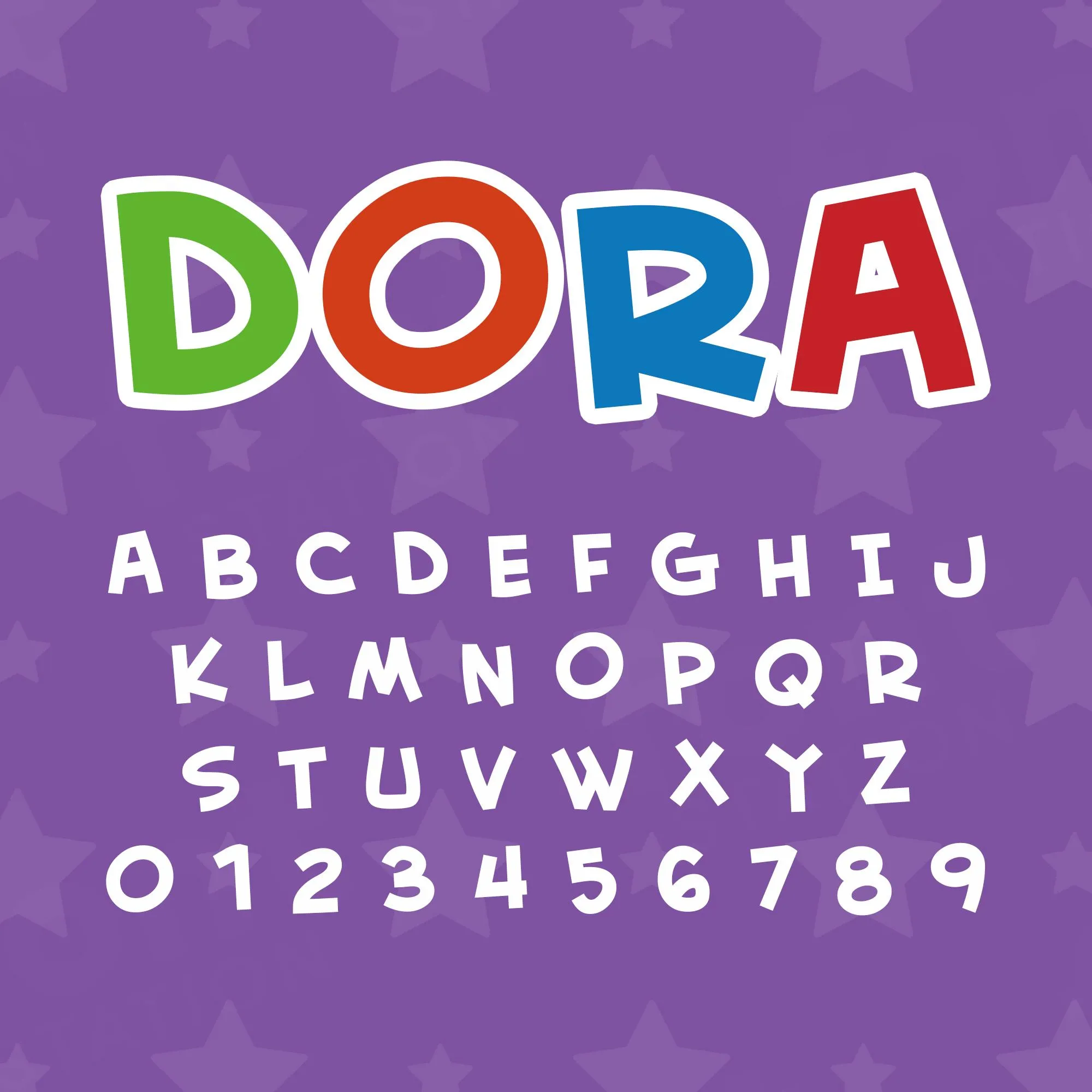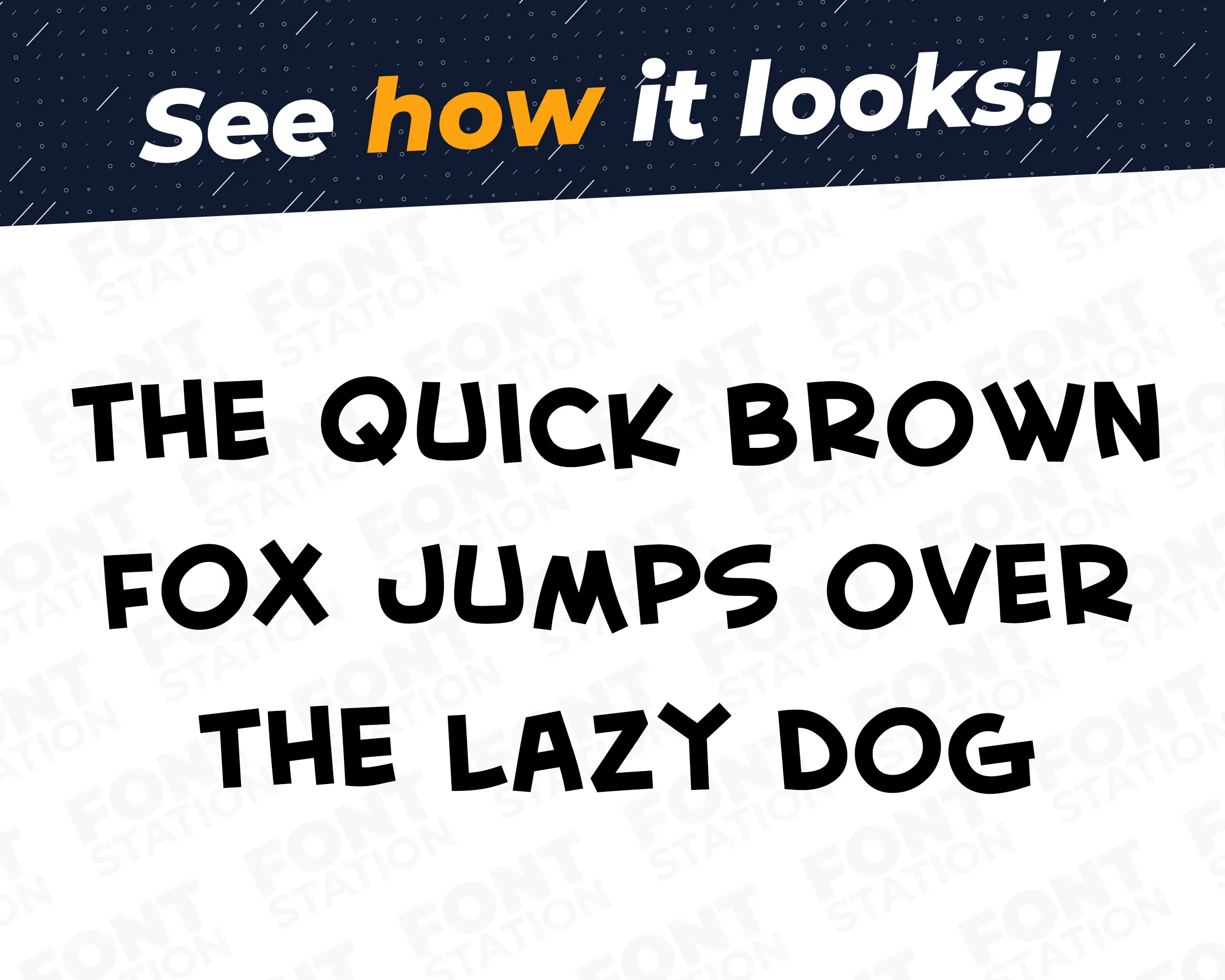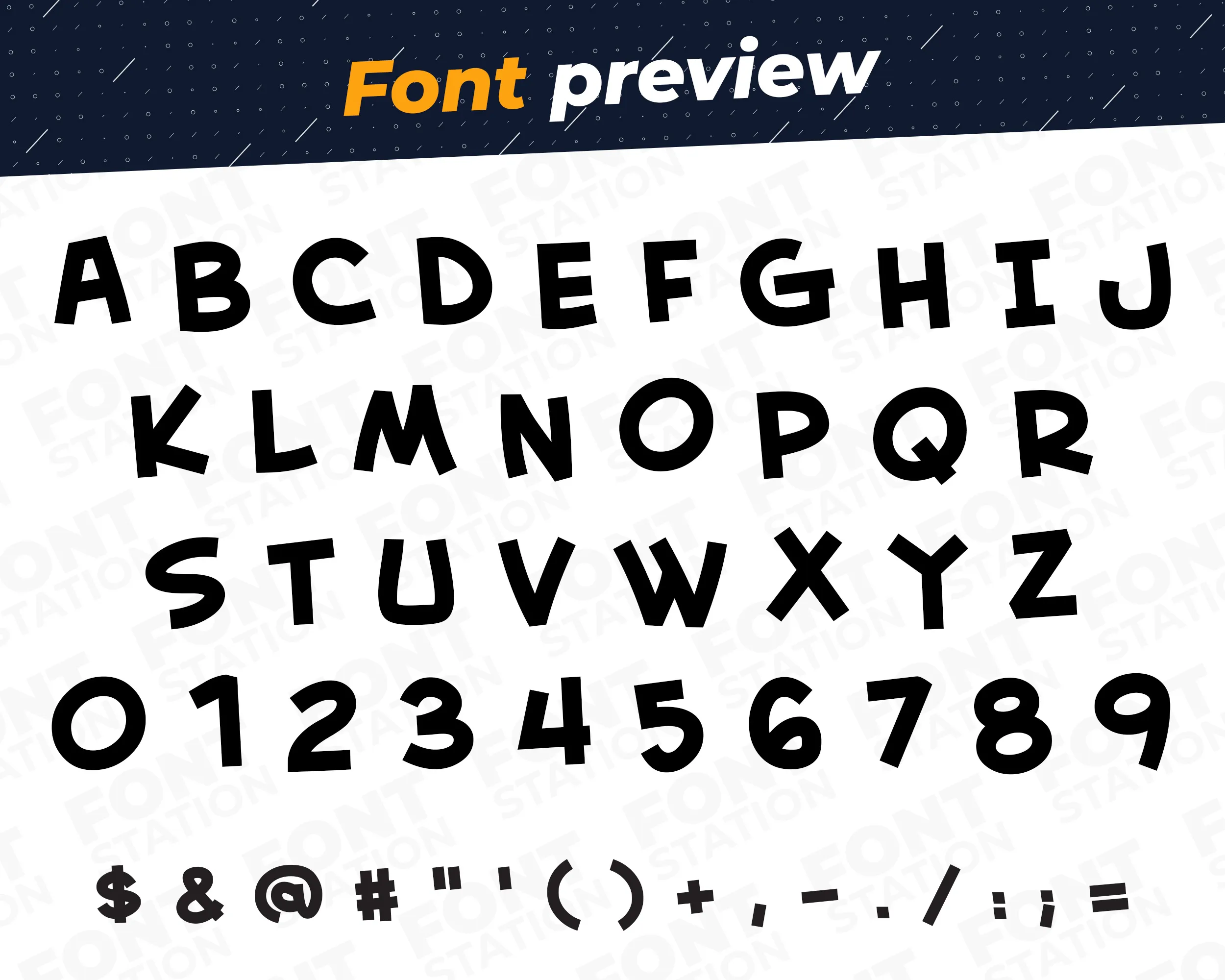
Our Dora typeface, inspired from Dora the Explorer font
Grab your computer, tablet or other device and start creating right now with our Dora the Explorer font letters! Our Dora typography is inspired from Dora the Explorer cartoon font, making it ideal for various digital creations (logo, word…), sublimation, cake toppers, stickers, event decorations, and more.
Image showing all characters available in the Dora the Explorer font created by FontMaze.
Dora the Explorer Font